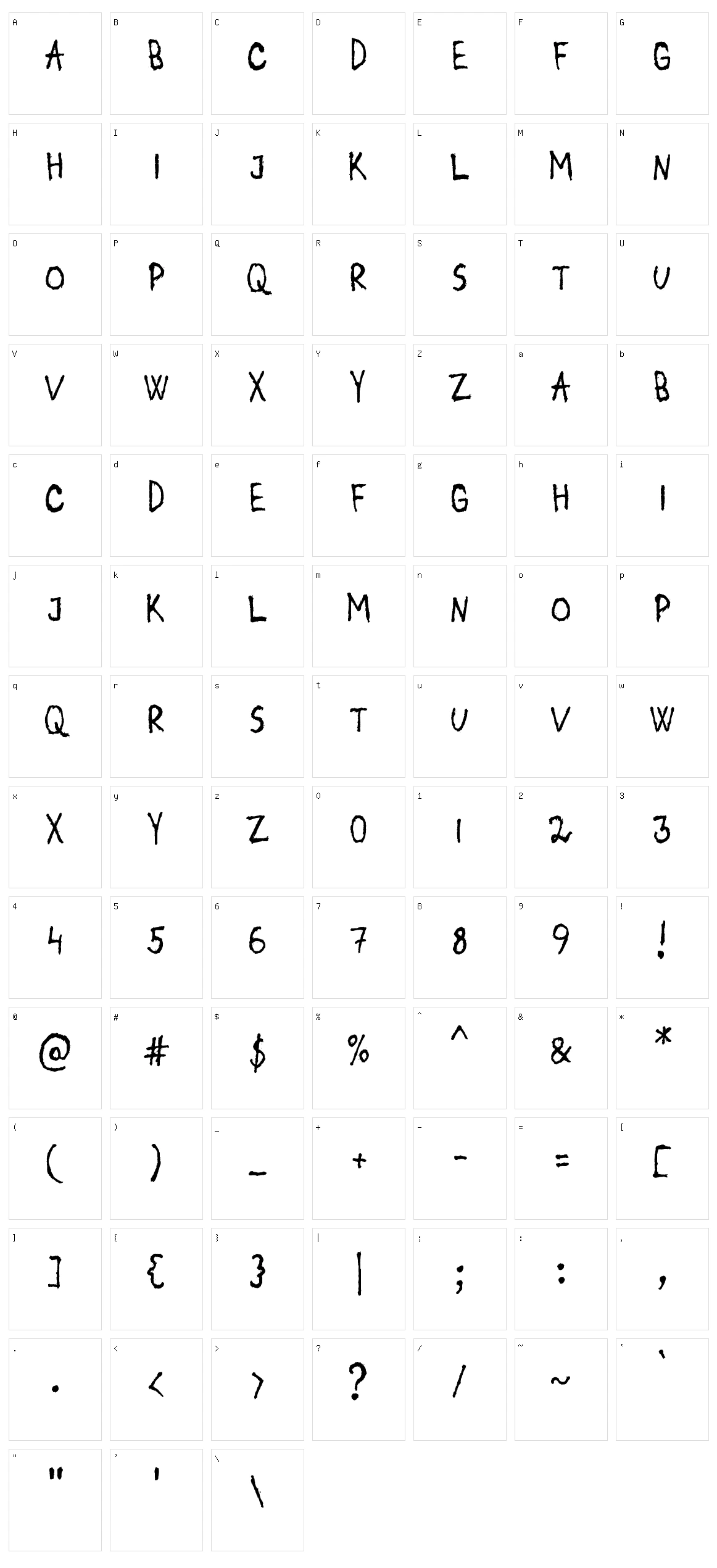
The free font Dirty Harold is carefully designed by GGBotNet, showcasing a thoughtful balance of creativity and usability and falls under the Script font style. When you download the ZIP file, it contains only 137.55 KB of font files, making it lightweight and quick to download. Please review the license details below to understand permitted usage and distribution rights. If license information is not available, we recommend using this font for personal projects only or contacting the author directly for commercial usage permissions.